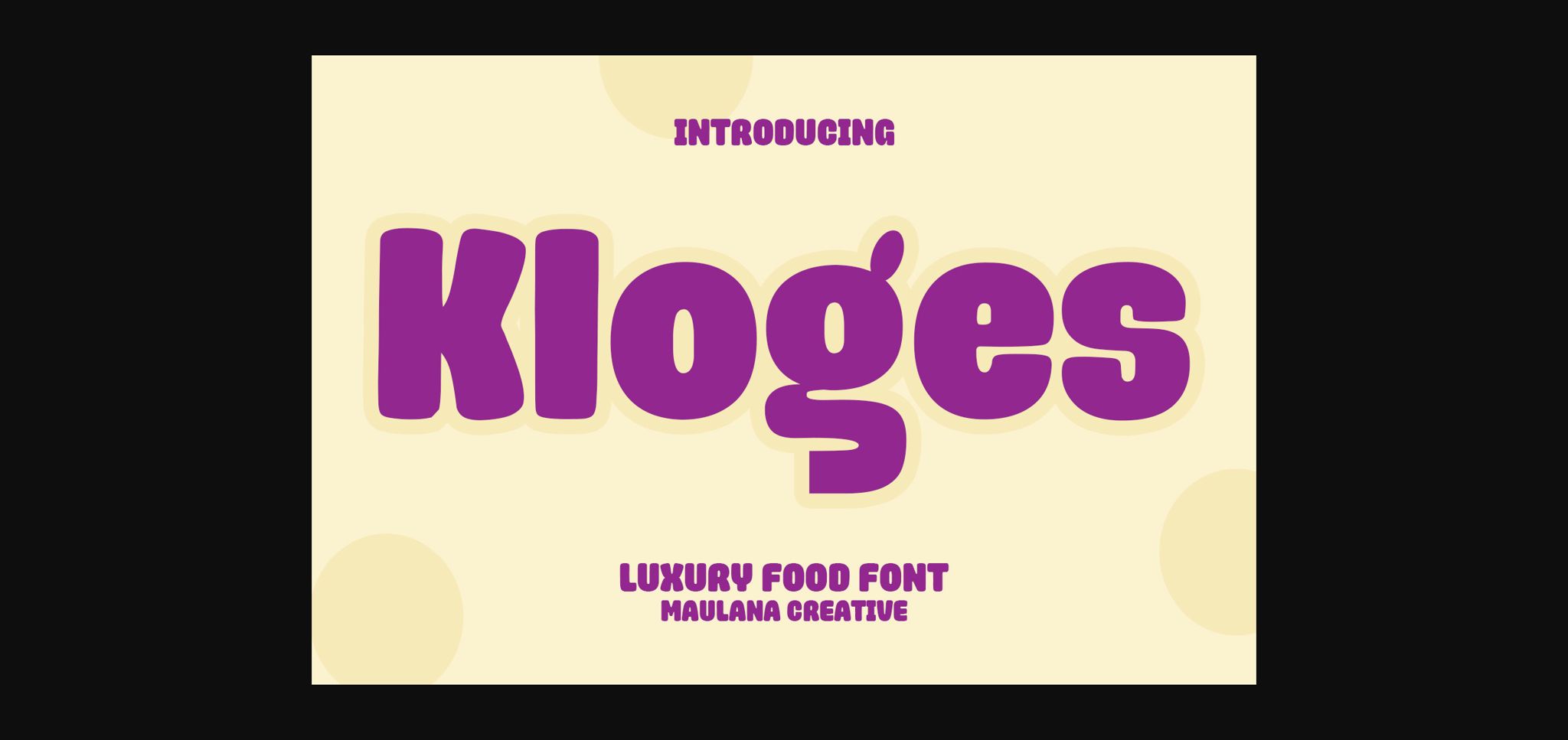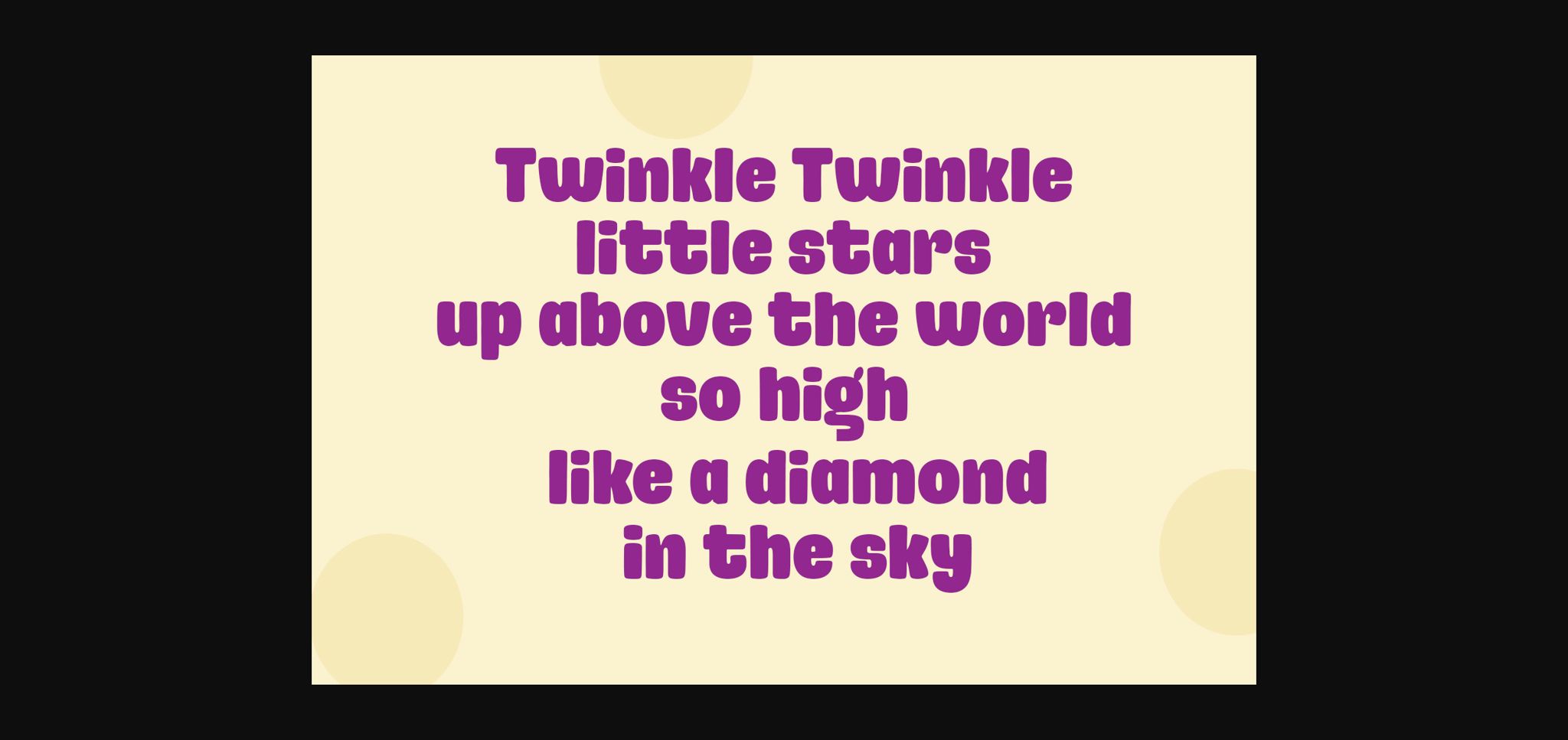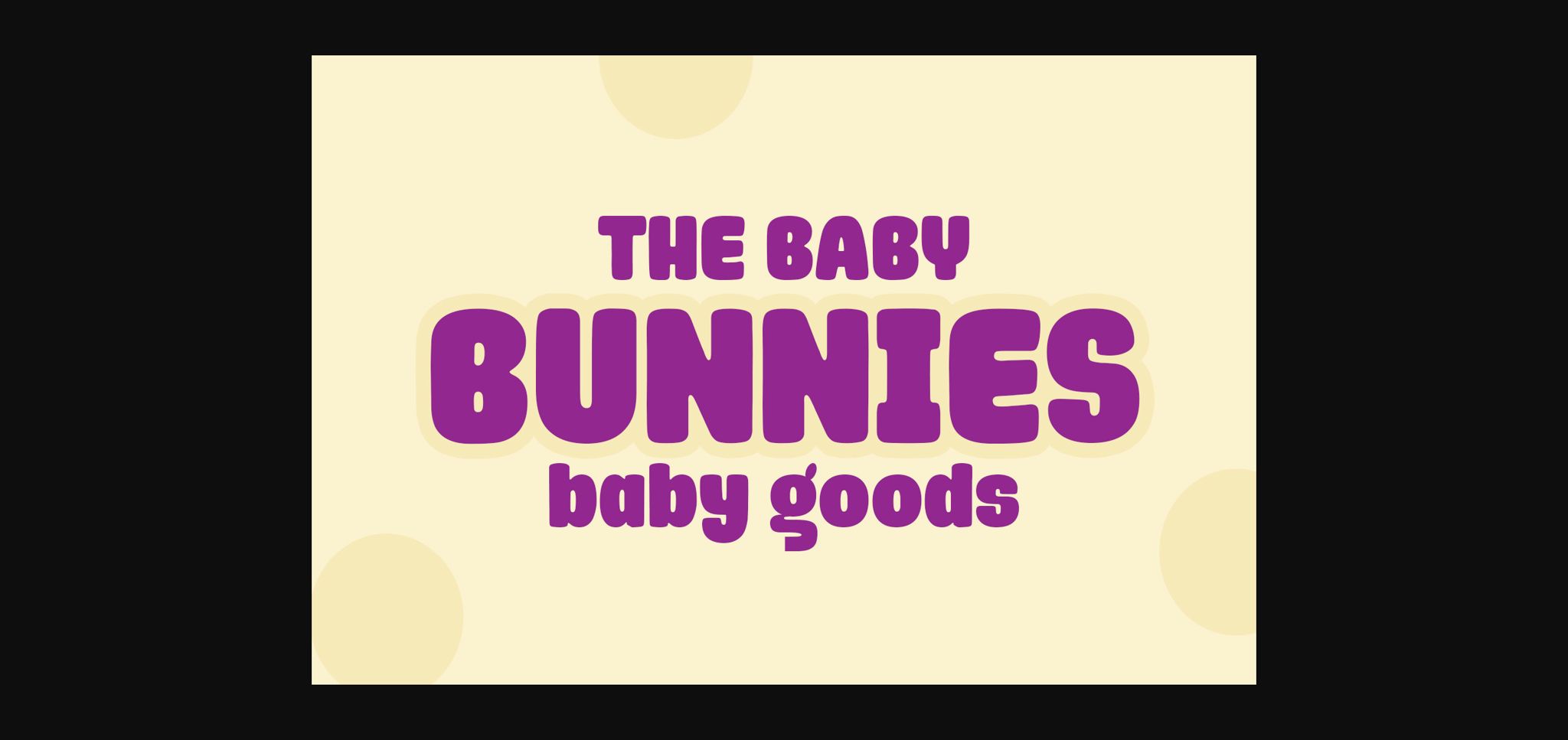
Kloges Font
About Kloges Font
Kloges is a casual and cool sans display font. It features the right amount of trendiness and style, which makes it suitable for a wide range of creative projects.